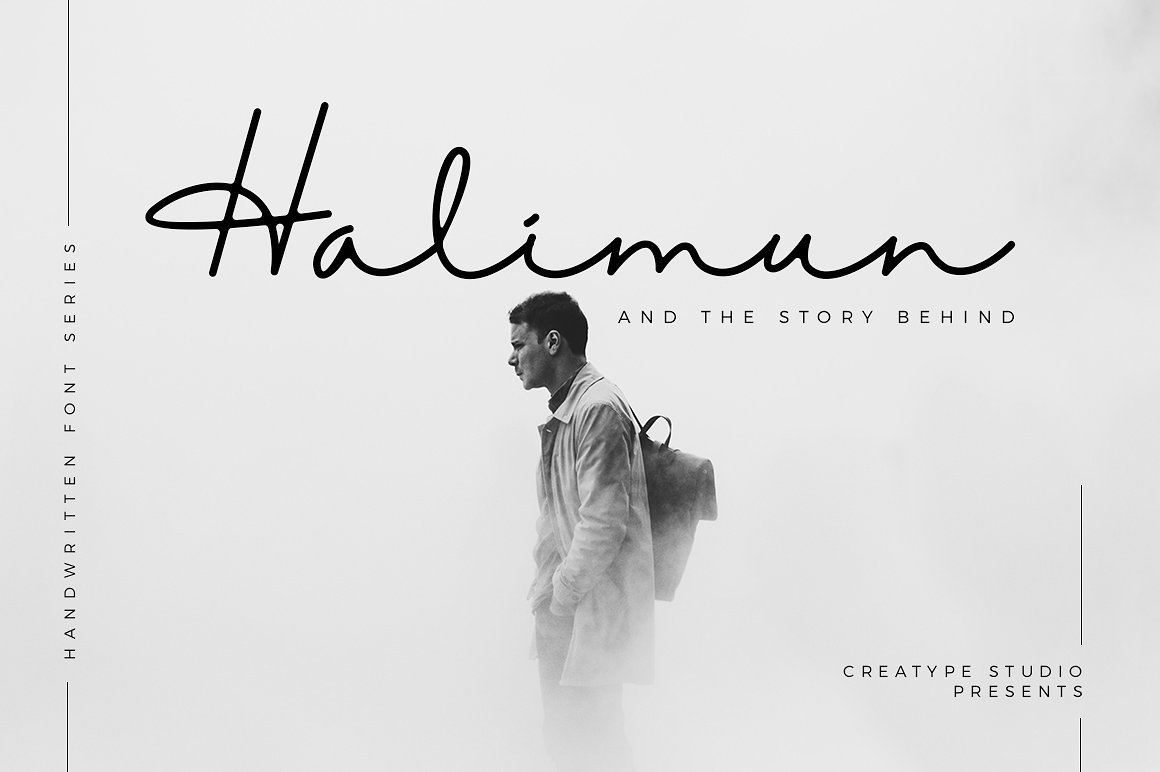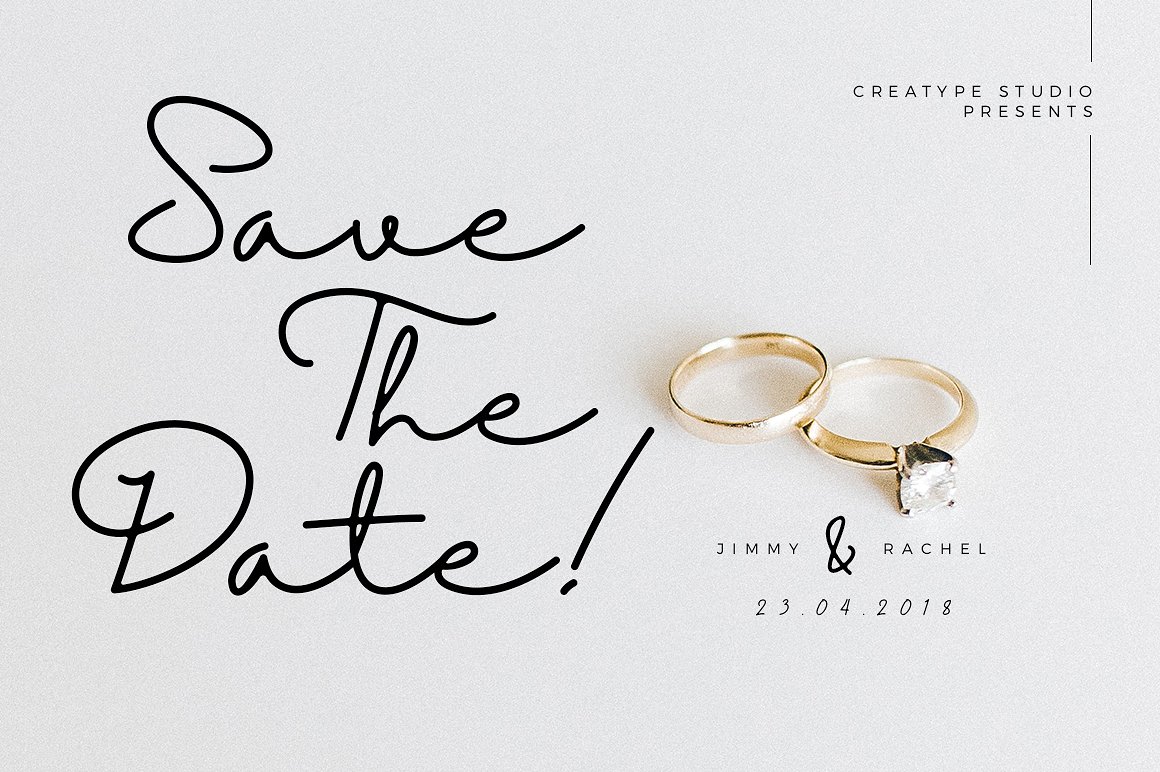
Halimun Font
Halimun Script style – a new modern & fresh script with a handwritten and script style make this font looks elegant, natural, stylish and perfect for any awesome projects that need handwriting taste.